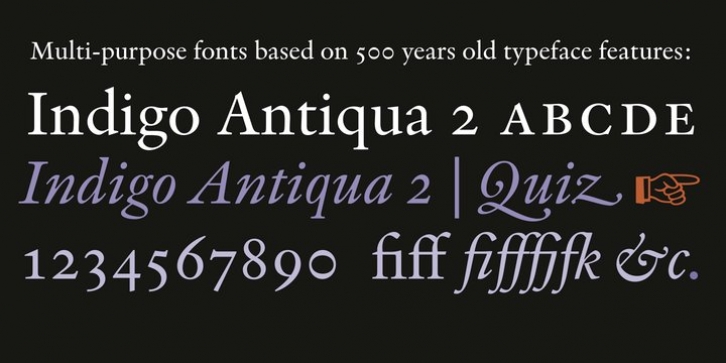
Indigo Antiqua 2 was designed by Johan Ström and published by Fontanova. Indigo Antiqua 2 contains 4 styles and family package options. The font is currently #46 in Hot New Fonts.
Indigo Antiqua 2 is an old-style humanist serif typeface primarily based on personal studies of a typeface by Francesco Griffo (1450–1518) Italian punchcutter. But it is not a revival of the so called original Bembo (1496) or any other typeface.
My Inspirations are of various kinds, but some outstanding old typeface masters like Guillaume le Bé, Miklós Kis, Peter de Walpergen and Christoffel van Dijck are important.
Indigo Antiqua 2 is most commonly used for body text were legibility / readability matters – and is a reliable multi-purpose typeface. It has been applied for thousands of book titles and between the book covers made reading comfortable.
By using Indigo Antiqua 2 with OpenType features You can reach additional ligatures, various figure sets, small caps, stylistic options and a lot of other typographical choices.